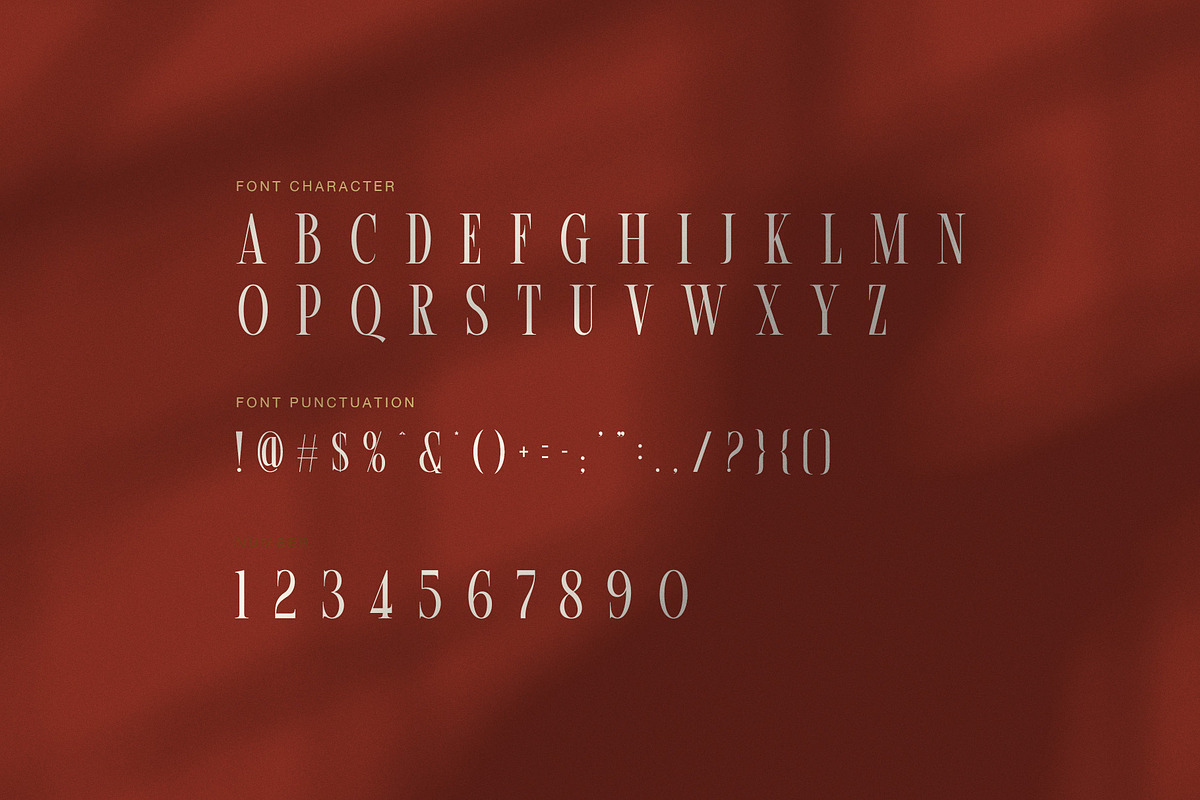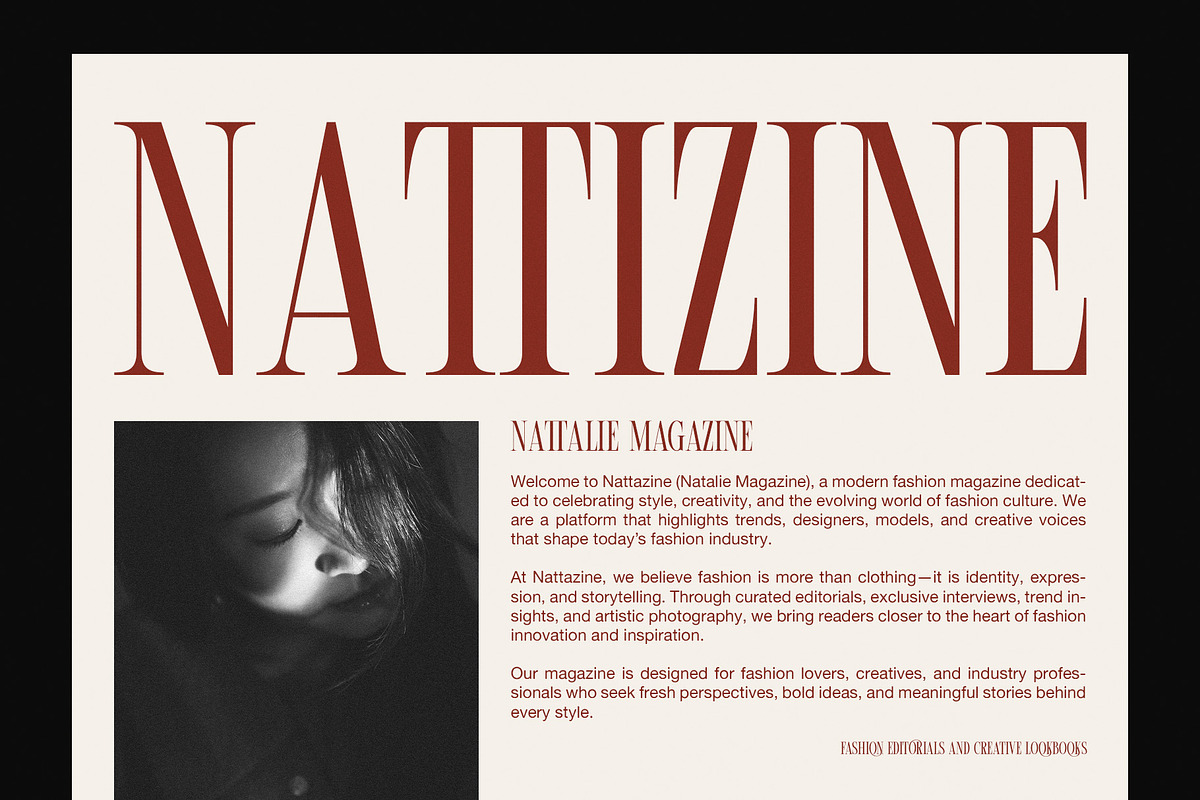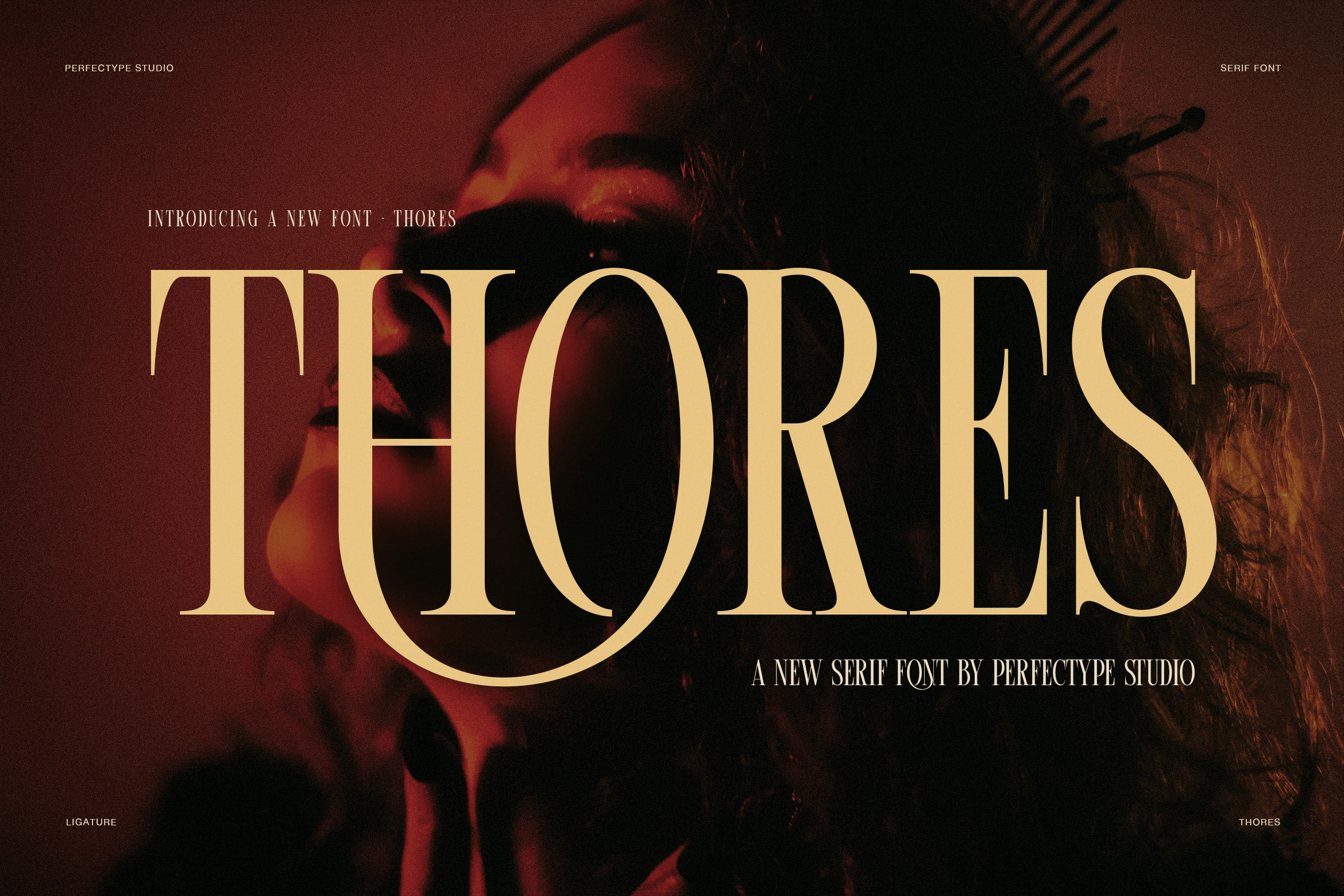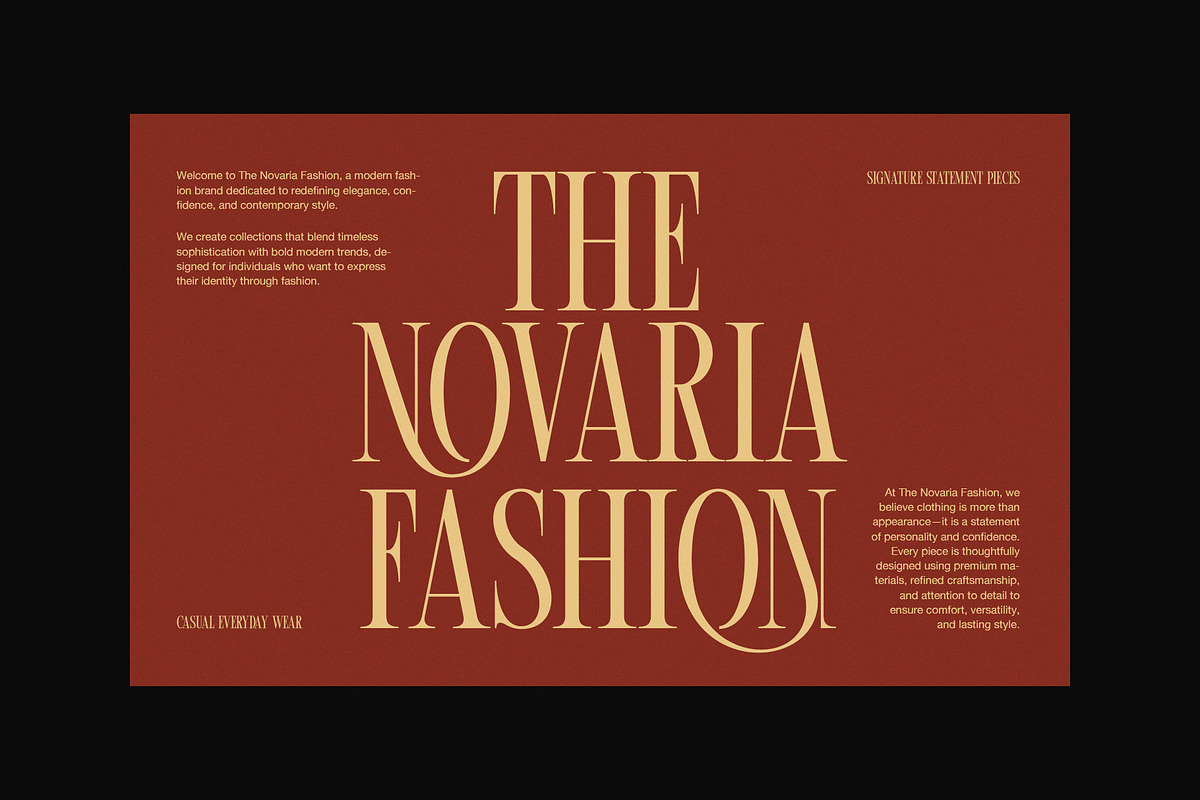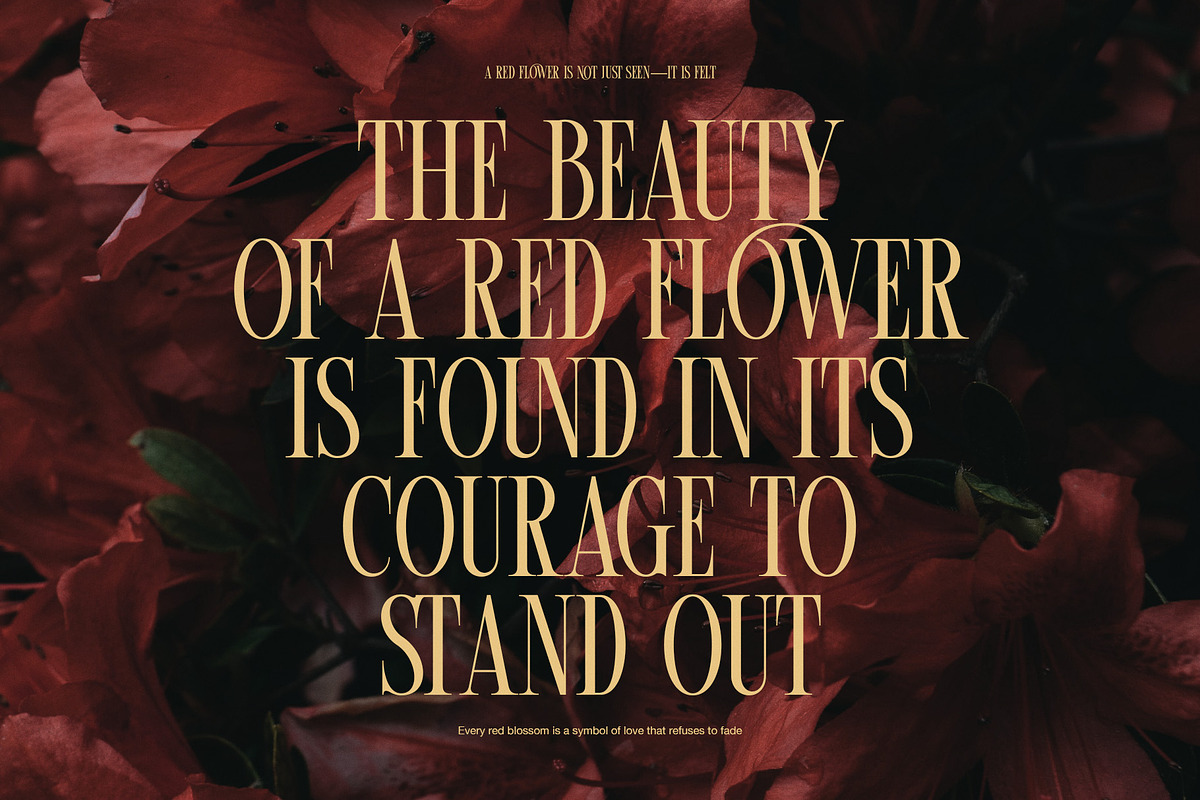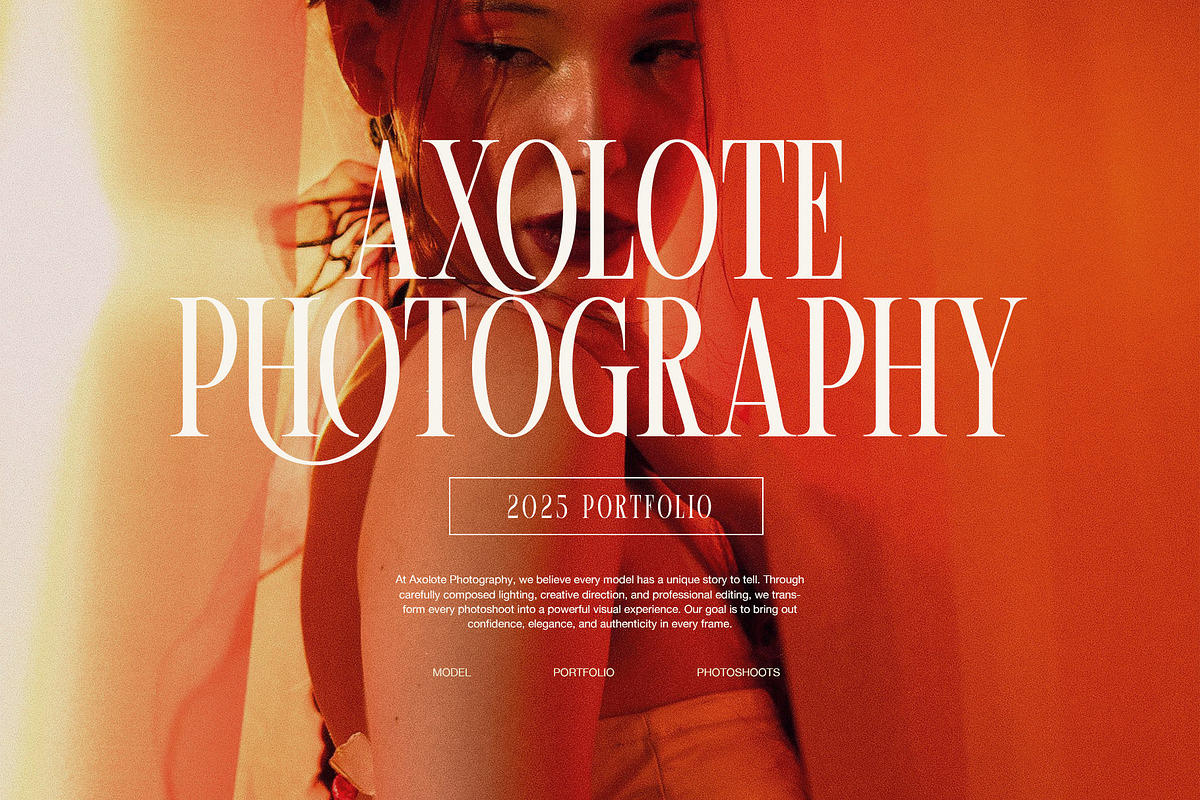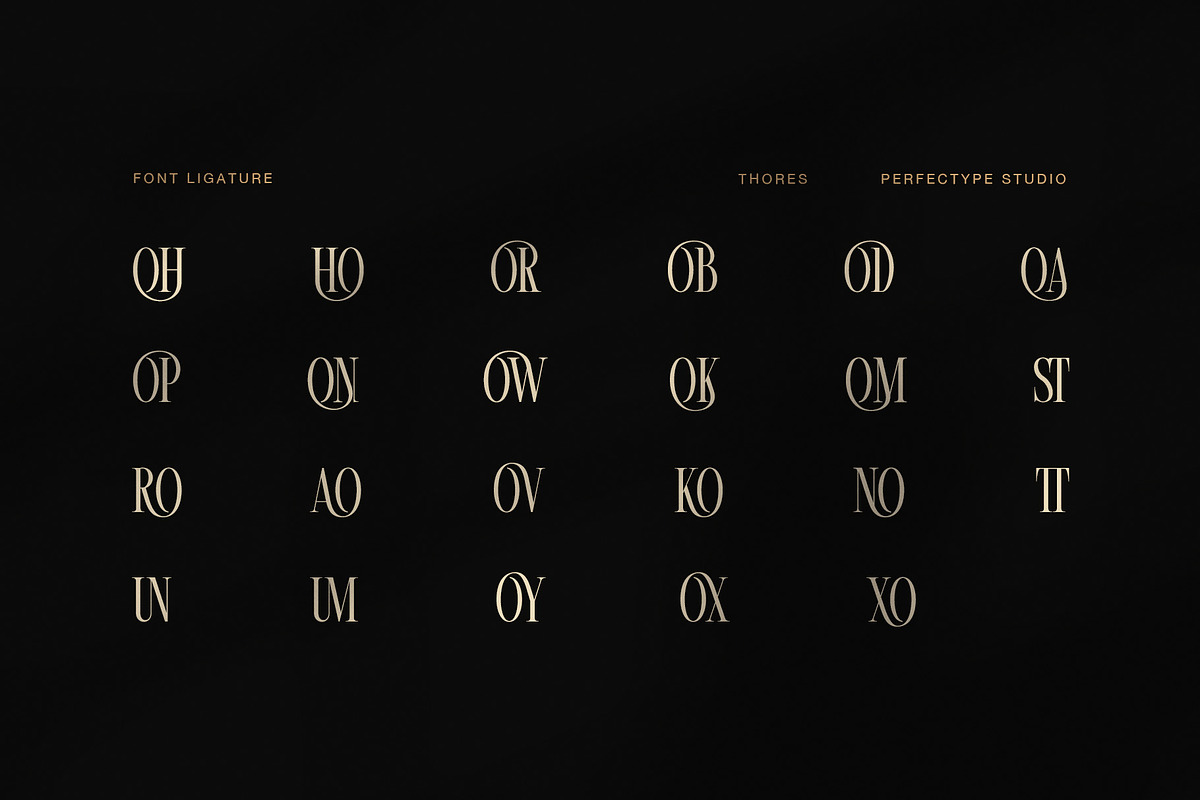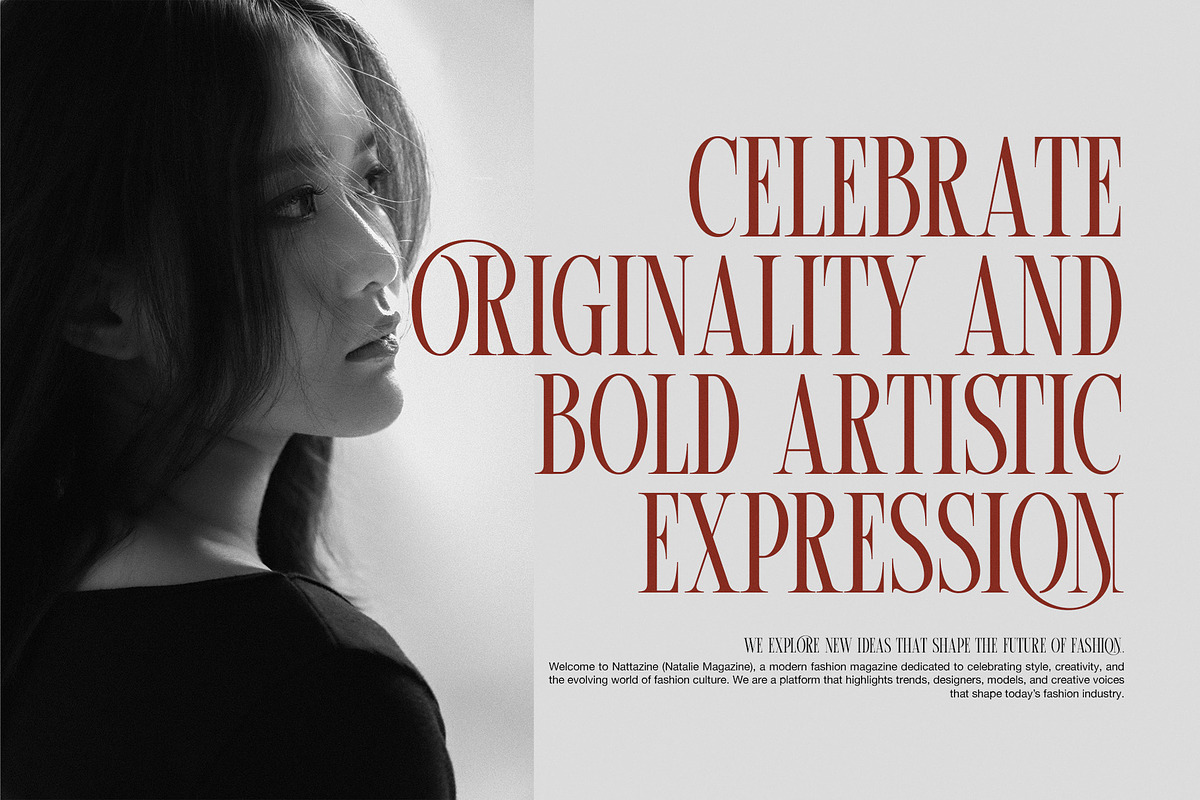
Thores Contrast Serif Font
Thores is a striking high contrast serif font designed for fashion, editorial, and luxury-focused typography. Its tall uppercase letters combine strong vertical strokes with extremely fine hairlines, creating a sharp contrast that feels refined, dramatic, and modern. As a result, the typeface gives headlines a confident presence while keeping the overall layout elegant.
Fashion Editorial Typography
Thores is especially suited to fashion magazines, beauty campaigns, photography portfolios, and premium brand identities. Its narrow proportions help long headlines fit neatly into editorial layouts. Meanwhile, the thin strokes add a delicate touch that works beautifully with large display text.
Because of its dramatic structure, Thores performs best at larger sizes. Therefore, designers can use it for magazine covers, campaign titles, posters, lookbooks, and website hero sections. It can also add a distinctive tone to social media graphics and promotional artwork.
Elegant Ligatures for Unique Headlines
One of the strongest features of Thores is its collection of decorative uppercase ligatures. These combinations create a more connected and artistic appearance when selected for suitable words. In addition, the ligatures help designers build custom-looking headlines without manually redrawing letterforms.
The font includes a full set of uppercase characters, lowercase characters, numbers, and punctuation. Moreover, its carefully drawn letterforms maintain a consistent high contrast style across the character set.
Ideal Uses for Thores
Thores can bring a premium editorial mood to many creative projects, including:
Fashion magazine covers and editorials
Luxury fashion and beauty branding
Photography portfolios and campaigns
Perfume and cosmetic packaging
Boutique logos and visual identities
Posters, invitations, and art prints
Lookbooks and seasonal collections
Social media campaigns and advertisements
Website headers and creative portfolios
Product titles and promotional graphics
Modern, Dramatic, and Refined
Thores balances classic serif structure with a bold contemporary attitude. Therefore, it works particularly well with minimalist layouts, monochrome photography, rich red tones, warm neutrals, and high-fashion imagery. Its strong vertical rhythm also creates an elegant contrast against clean sans serif text.
Whether you are creating a luxury identity or an expressive editorial design, Thores helps typography become the visual statement. Ultimately, this high contrast serif font is made for designers who want tall, elegant letterforms, refined details, and a memorable fashion-inspired look.